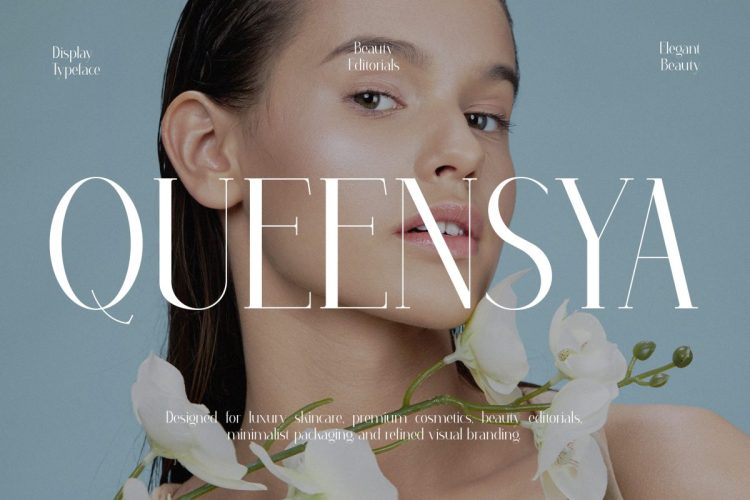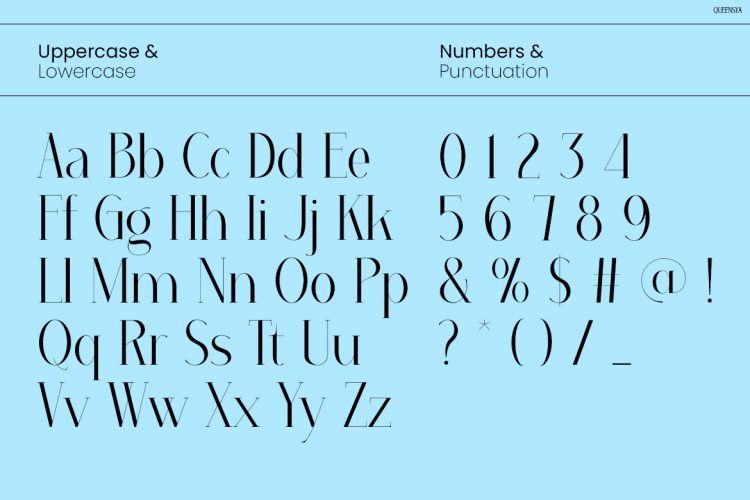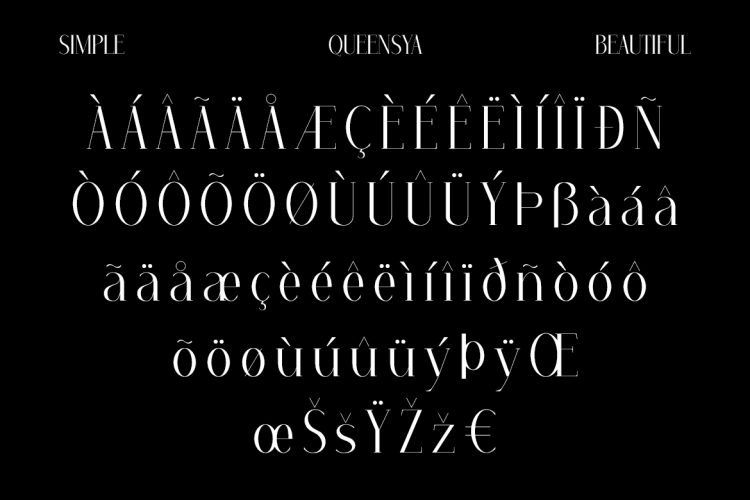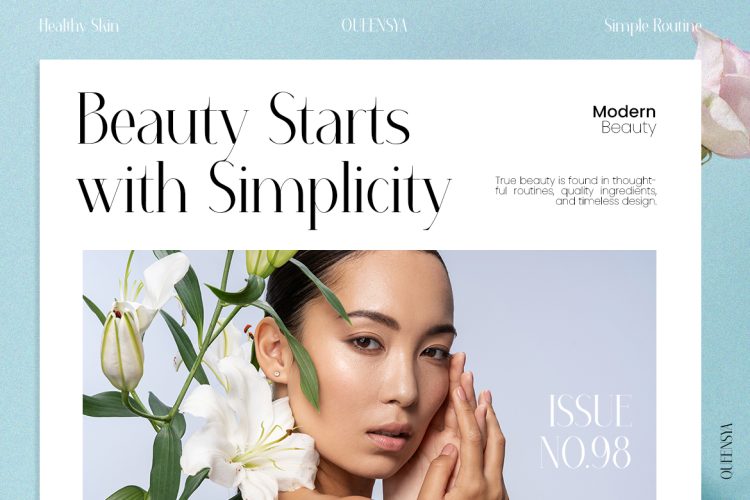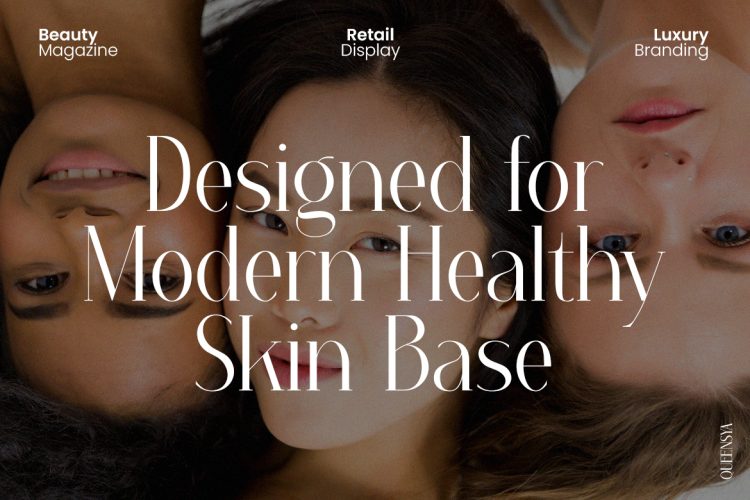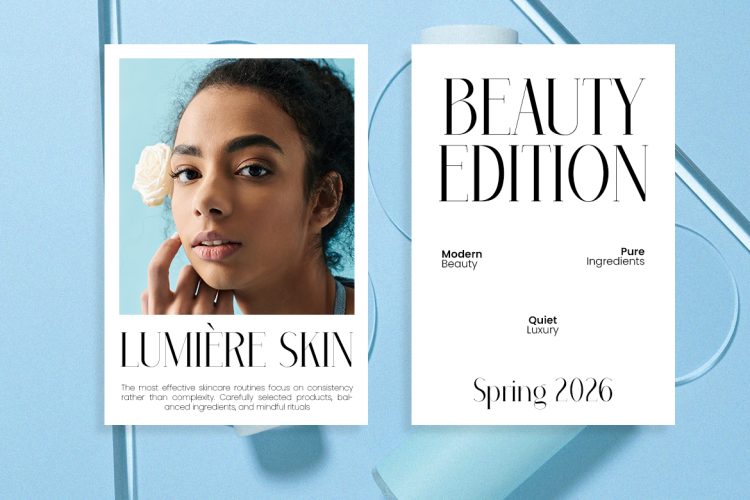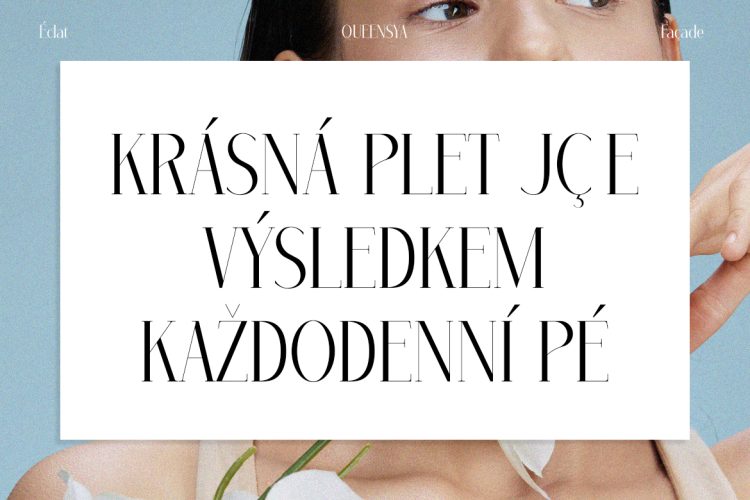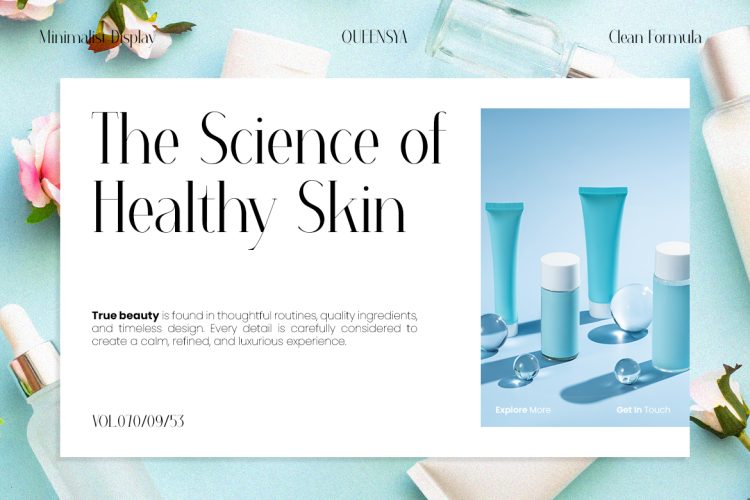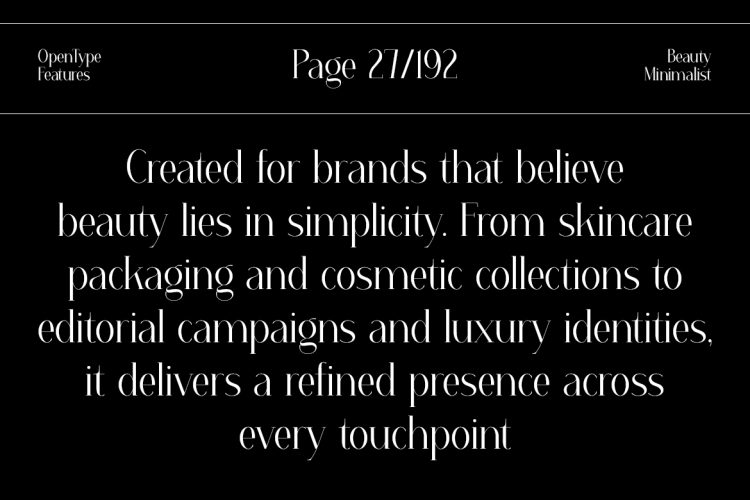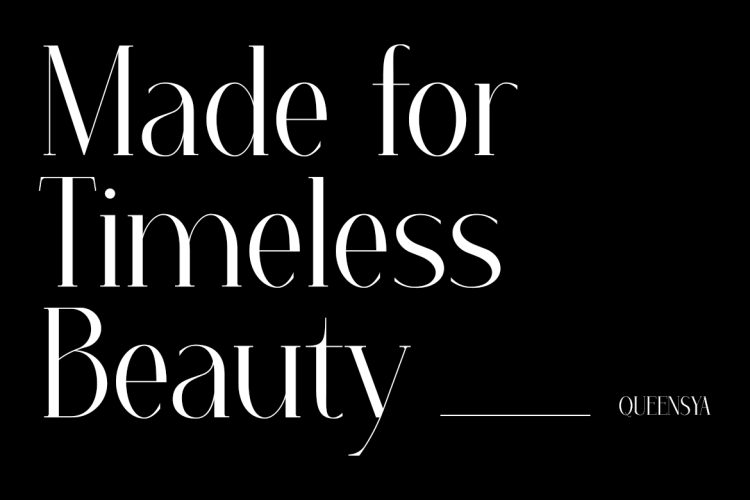
Instagram Font Queensya โย Grace in Every Letter, Confidence in Every Design
Instagram Font Queensya captures the quiet confidence of modern elegance through a beautifully refined serif design. Instead of overwhelming your layouts with unnecessary details, Queensya lets sophisticated typography become the center of attention. Moreover, its slender proportions, delicate curves, and luxurious contrast create a graceful rhythm that feels effortlessly premium. As a result, every headline communicates confidence, purity, and sophistication. At the same time, the balanced letterforms maintain exceptional readability across both print and digital media. Furthermore, with Multilingual Support for 67 languages, Queensya allows your brand to communicate beautifully with audiences around the world.
Why Instagram Font Queensya Stands Out
Instagram Font Queensya is designed for creatives who understand that subtle typography often creates the strongest impression. Not only does it elevate visual identity, but it also adds a refined editorial atmosphere to every project. In addition, its elegant style is perfect for skincare branding, luxury cosmetics, wellness products, fashion campaigns, boutique packaging, lifestyle magazines, premium websites, wedding stationery, and Instagram content. Likewise, its timeless appearance pairs naturally with minimalist compositions. Meanwhile, the extensive multilingual support makes it suitable for international branding. Most importantly, Queensya transforms simple words into sophisticated visual experiences that feel modern, graceful, and memorable.
- Beauty and skincare brands
- Luxury cosmetic packaging
- Fashion editorials and magazines
- Wellness and lifestyle branding
- Boutique logos and visual identity
- Wedding invitations
- Premium websites
- Instagram and social media content
Refine Your Brand Story
If you believe beautiful typography speaks before words do, Queensya is the font you’ve been waiting for. Furthermore, its elegant character instantly elevates every composition with a luxurious editorial feel. Consequently, your branding becomes more polished, recognizable, and trustworthy. Finally, choose Queensya today and let every letter express timeless beauty with effortless sophistication.